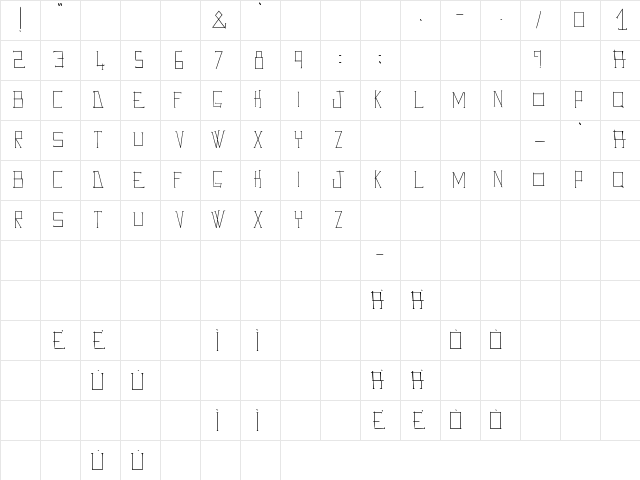
Ave Giulio Regular
Design Context for Ave Giulio
Ave Giulio is a composed and adaptable typeface that performs quietly and consistently across a wide range of design contexts.